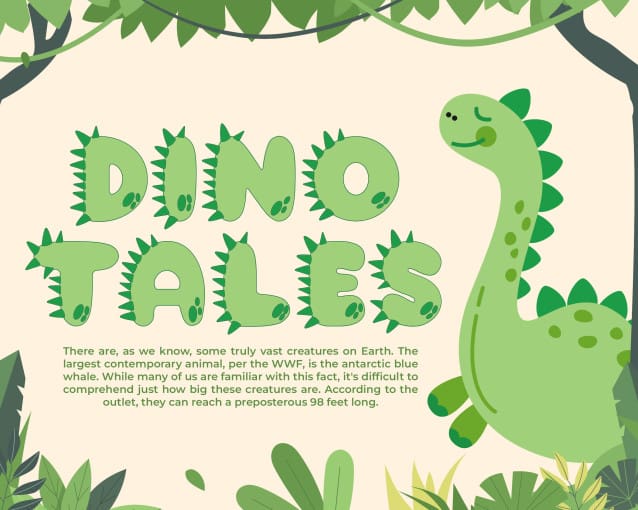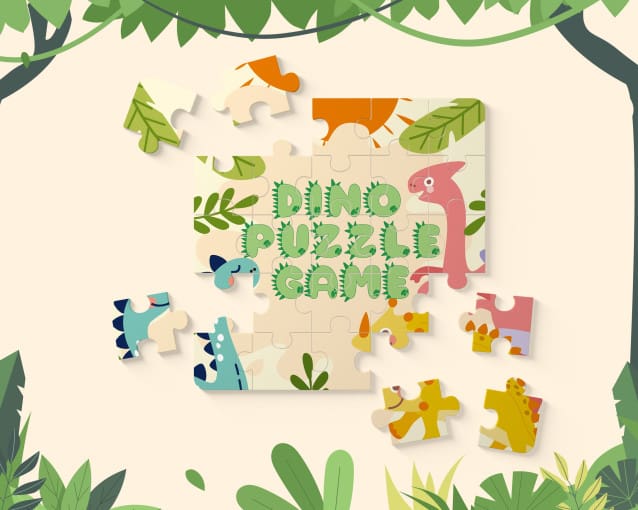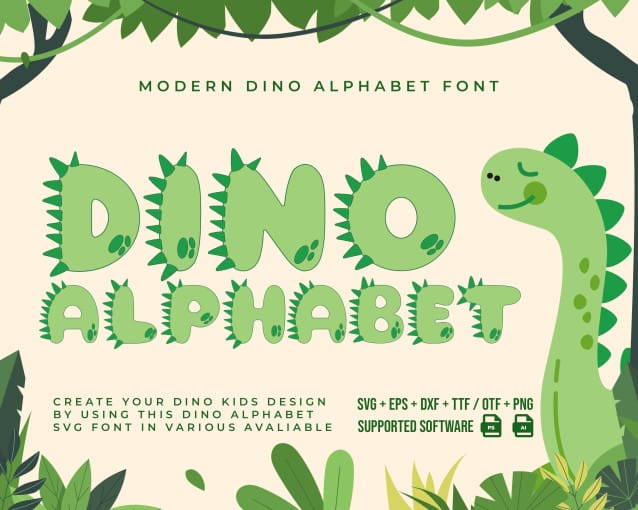
Bubble Gum Dino Alphabet Font
Bubble Gum Dino Alphabet Font is a uniquely combined typeface concept. Created with a dinosaur theme, this font is perfect for all kinds of kid activities. Unique, interesting, and funny letter shapes will leave an unforgettable impression on the childrens minds.
You can use this Decorative Bubble Gum Dino Alphabet Font for all printing needs, such as school supplies, bags, pencil cases, story books, textbooks, and decorations on school walls. When placed over a variety of items, this font is fun and eye-catching typographic design will grab a child’s attention instantly. For this reason, we recommend using this typeface in any product intended for children.
Cute Decorative Bubble Gum Dino Alphabet Font can also be used effectively in the digital world. This font is also suitable for individuals and companies who want to create games for children, or those who want to produce a movie or video streaming service for young audiences.